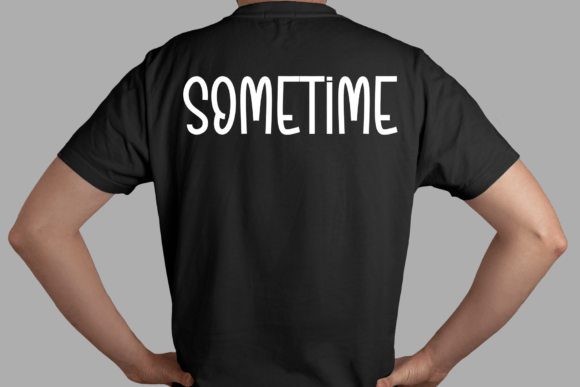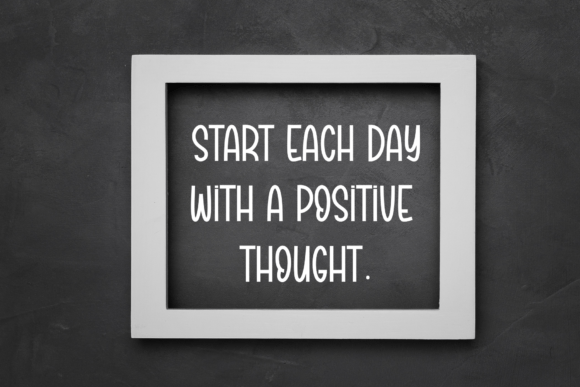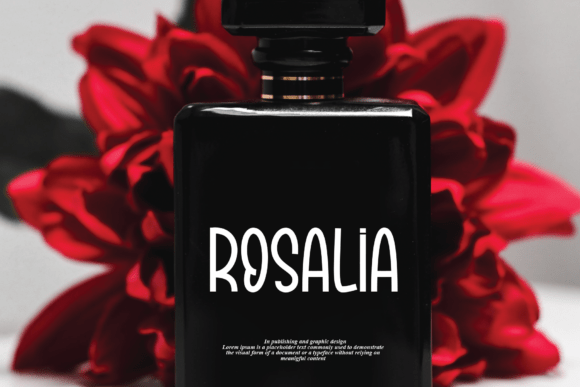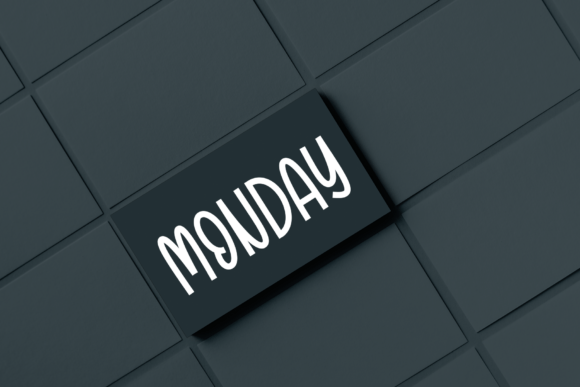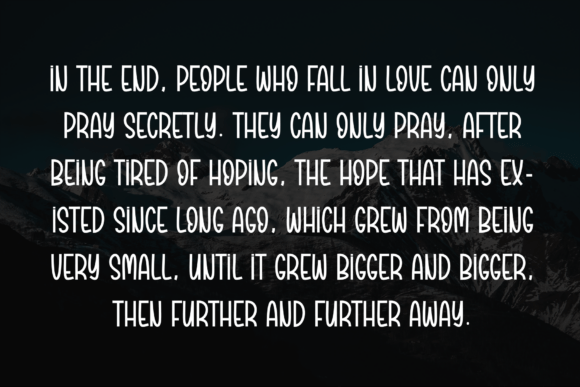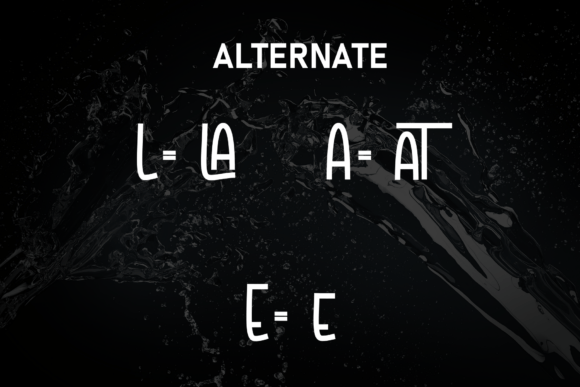
The Designer’s Delight: Exploring the Black Water Font
I’ll never forget the time I was working on a branding project for a trendy new cafe, and I just couldn’t find the right font to capture their quirky, yet sophisticated vibe. The client wanted something bold, yet approachable, and I was determined to deliver. That’s when I stumbled upon the Black Water font, and it was love at first sight! 💕
With its tall, hand-drawn letterforms and subtle irregularities, Black Water added a touch of charm and personality to my design that I just couldn’t replicate with any other font. And let me tell you, the client was thrilled! In this article, I’ll dive into what makes Black Water so special, and how you can make the most of it in your own design projects.
What I Love About Black Water ✨
- ✅ Bold and playful: Black Water is perfect for striking headlines, logos, posters, and branding projects that need a strong typographic presence.
- ✅ Clean and condensed: Its structure makes it easy to read, even at smaller sizes, while still offering a modern, handcrafted look.
- ✅ Excellent legibility: Black Water maintains clarity and readability, making it ideal for creative designs that need a bold yet approachable font.
- ✅ PUA encoding: This feature ensures that all stylistic features and extras can be used with just a few clicks, making it a breeze to customize your design.
- ⚠️ Limited use cases: While Black Water is amazing for bold designs, it may not be the best choice for body text or smaller font sizes.
- ⚠️ Glyph limitations: Some users have reported that the font could benefit from more glyphs, especially for non-English languages.
- Kabel: A classic, geometric sans-serif with a similar bold and playful vibe. Use it for headlines, logos, and branding projects that need a more structured look.
- Bebas Neue: A modern, condensed sans-serif with a similar clean and edgy feel. Ideal for designs that require a strong, yet minimalist typographic presence.
- Great Vibes: A script font with a similar hand-drawn, playful feel. Use it for designs that need a more elegant, yet approachable typographic style.
- Rock Salt: A bold, handwritten font with a similar charm and personality. Perfect for designs that require a more rustic, yet sophisticated look.
The Story Behind Black Water: Designer Inspiration
While the true story behind Black Water’s creation remains a mystery, it’s easy to imagine a designer sitting at their desk, experimenting with bold letterforms and playful typography. Perhaps they were inspired by the world of street art, or the elegance of hand-drawn typography. Whatever the inspiration, Black Water is a true gem in the world of display fonts.
A: PUA (Private Use Area) encoding allows font designers to include additional glyphs and stylistic features that can be accessed easily through software like Adobe Creative Cloud. This means you can enjoy more creative freedom and customization options when using Black Water.
Q: Is Black Water suitable for body text or smaller font sizes?
A: While Black Water is amazing for bold designs, it may not be the best choice for body text or smaller font sizes. Its bold and condensed structure can make it harder to read at smaller sizes.